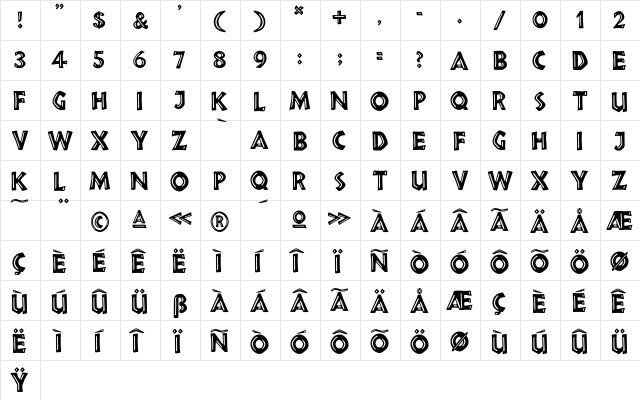
Chieftan Inline
| Style | Inline |
Design Context for Chieftan Typeface
Chieftan brings ornamental detail and strong personality to headlines and identities, where visual impact matters more than quiet functionality.
Font Pairing: Pair with a clean neutral sans-serif for body copy to let Chieftan's character lead without overwhelming the composition.
Pro Tip: Treat Chieftan as the centrepiece of your typographic hierarchy. One strong heading set in a decorative face can carry an entire layout.